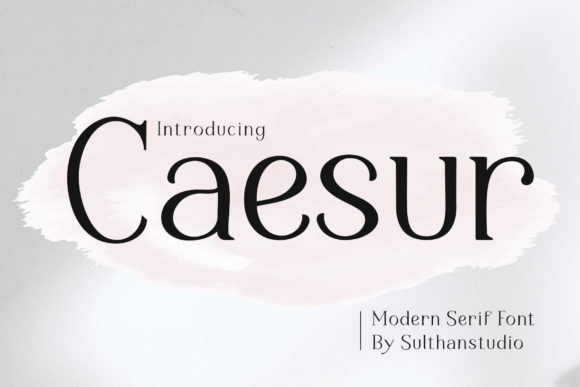
Introducing Caesur Font, the modern serif font that combines simplicity and allure, crafted with precision by Sulthan Studio. A remarkable font that seamlessly blends classic elegance with a contemporary touch, Caesur is the perfect choice for creating captivating logos, stylish magazines, and engaging social media content. Its versatility knows no bounds, making it the ultimate font for branding, design projects, and personal expression.
With its clean lines and refined curves, Caesur exudes sophistication and charm, leaving an unforgettable impression on your audience. Each letterform is meticulously designed to strike a harmonious balance between readability and visual appeal, ensuring your message is conveyed with clarity and impact. Whether you're designing a logo for your business, crafting a stylish magazine layout, or creating captivating social media posts, Caesur will elevate your designs to new heights.
Dive into the world of Caesur and unlock a realm of creative possibilities. Let its timeless beauty enhance your branding efforts, adding a touch of class and distinction to your logo. Unleash your creativity with Caesur and craft magazine layouts that captivate and engage your readers. Transform your social media presence with Caesur, creating posts that stand out from the crowd and leave a lasting impression.
Experience the versatility of Caesur and witness how effortlessly it adapts to a myriad of design projects. Its seamless integration ensures compatibility with various applications, making it your go-to font for�らゆるデザインタスク. Unleash your imagination and let Caesur be your creative companion, bringing your ideas to life with its timeless charm.
Caesur is more than just a font; it's an investment in your brand's identity. Its elegance and sophistication will set you apart from the competition, making an indelible mark on the minds of your customers. Download Caesur today and unlock the gateway to a world of creative possibilities, where your designs will shine with timeless beauty and effortless allure.